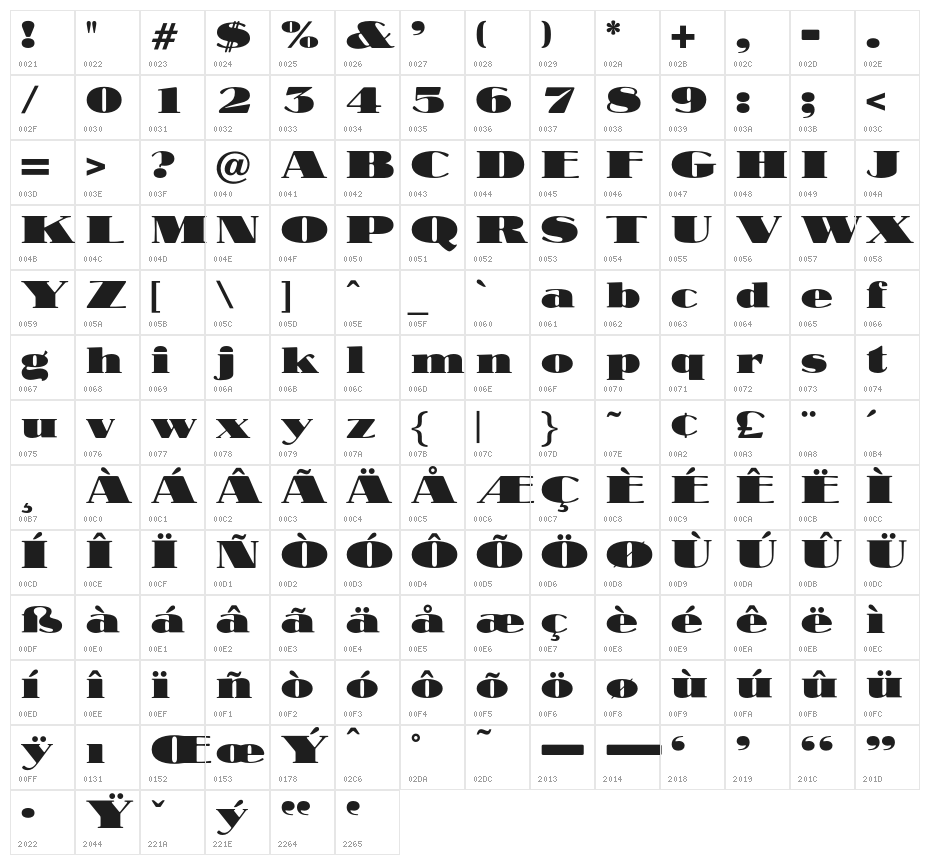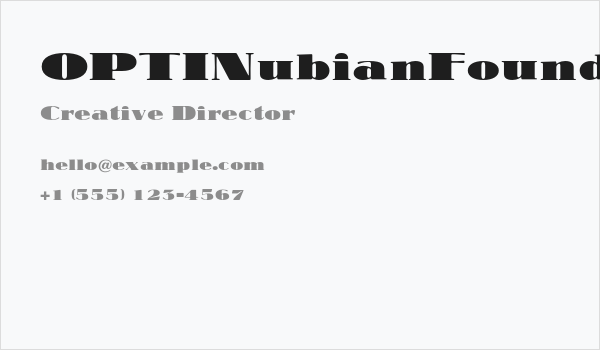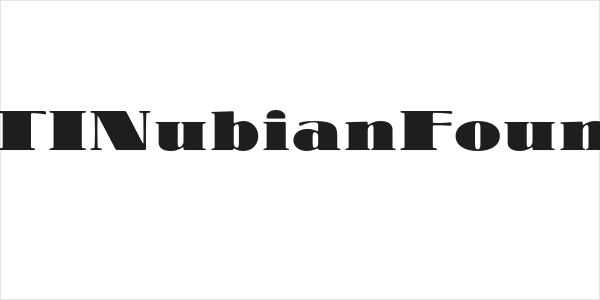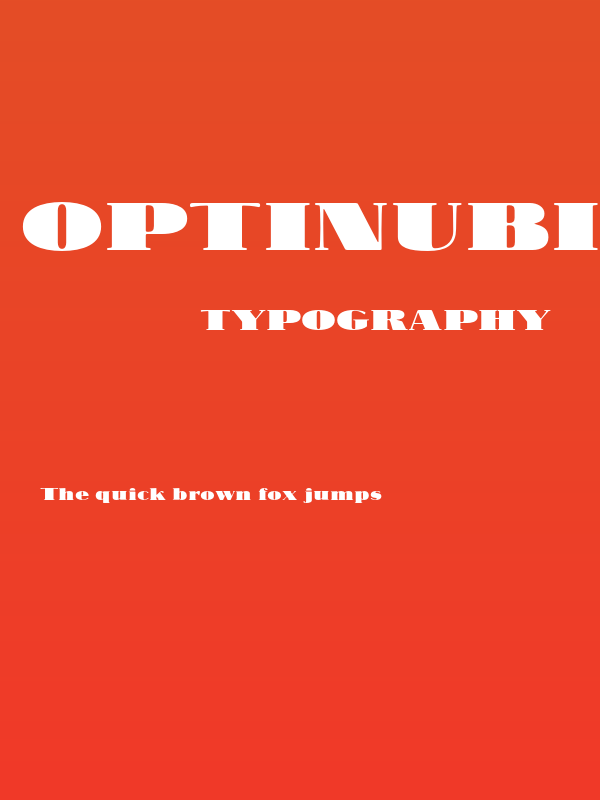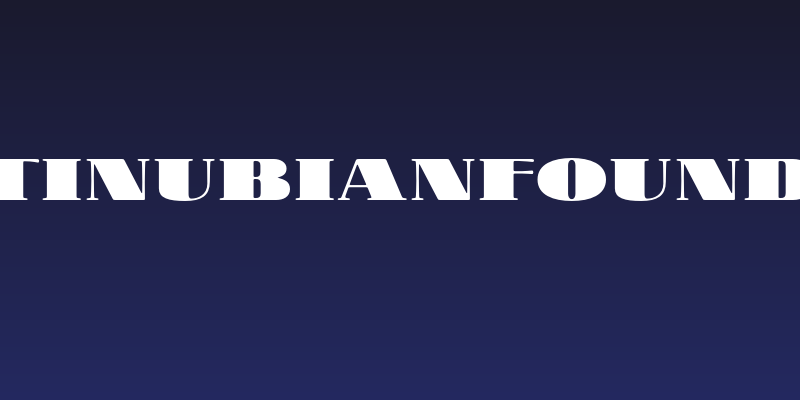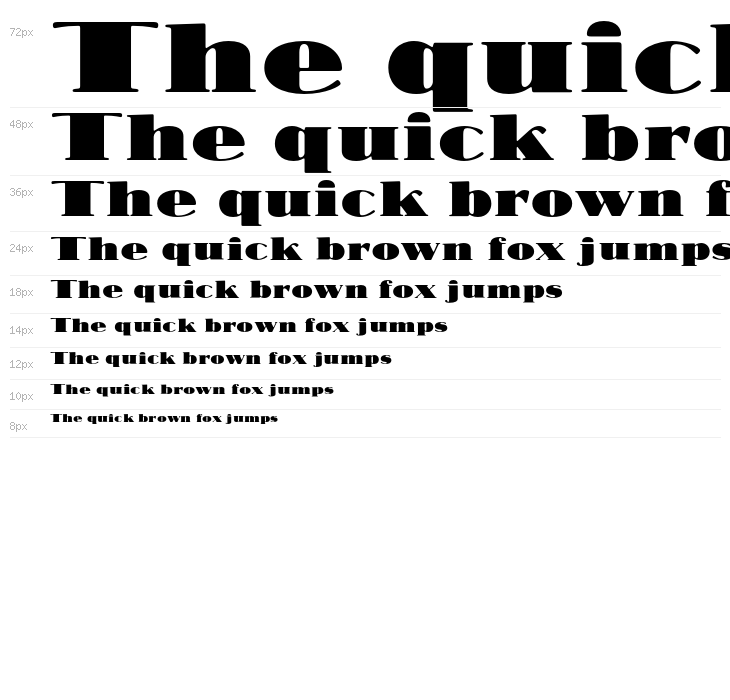
OPTINubianFoundry Font
OPTINubianFoundry Description
This font features bold, thick strokes with a strong presence, making it ideal for impactful designs. The uppercase letters are particularly wide and commanding, while the lowercase letters maintain a consistent weight, offering a balanced appearance. The numbers and special characters follow the same bold style, ensuring uniformity across all characters. The font's design is reminiscent of classic serif styles but with a modern twist, characterized by its high contrast between thick and thin strokes. This contrast enhances readability and adds a touch of elegance to the overall aesthetic.
| Proposed Projects | Ideal for branding, headlines, posters, and any project requiring a strong visual impact. |